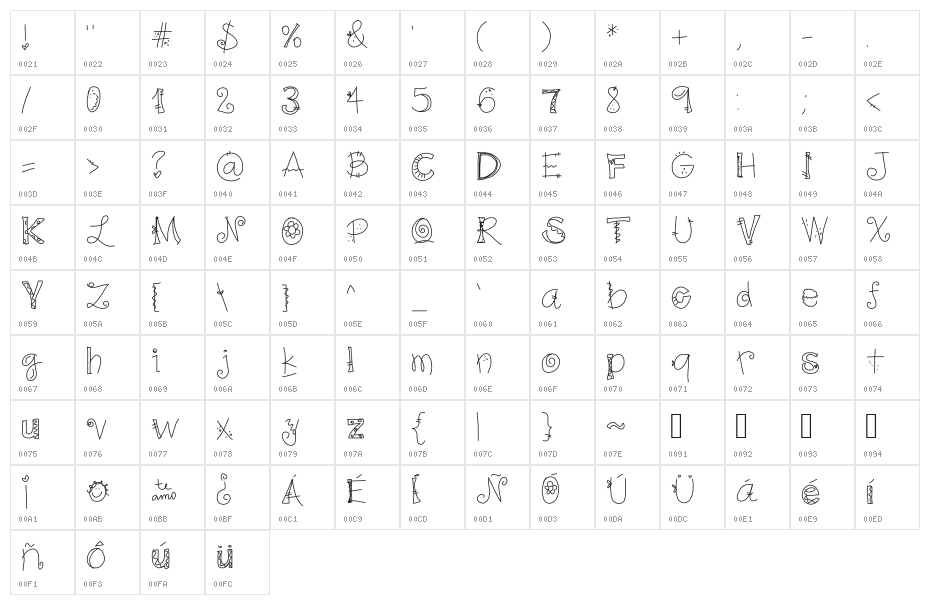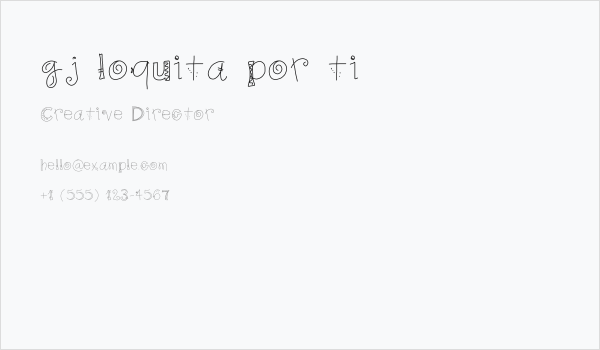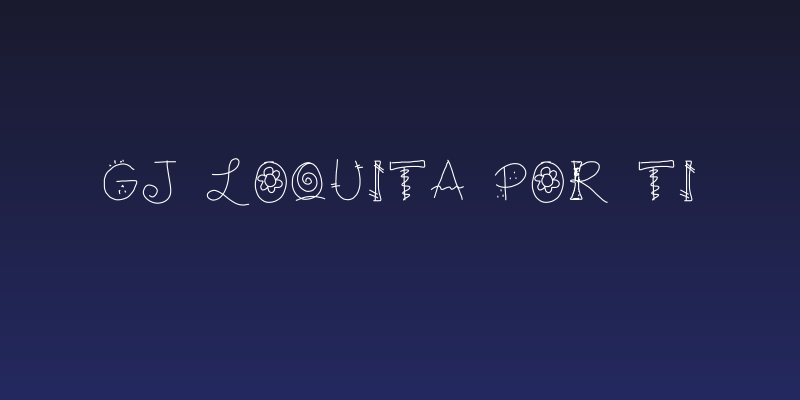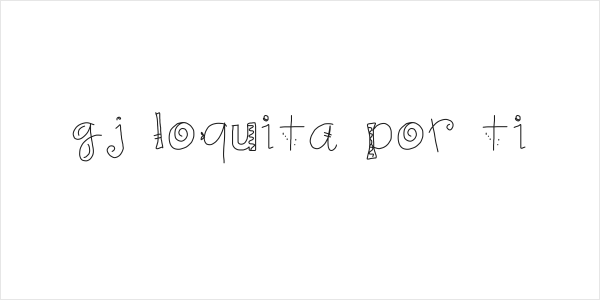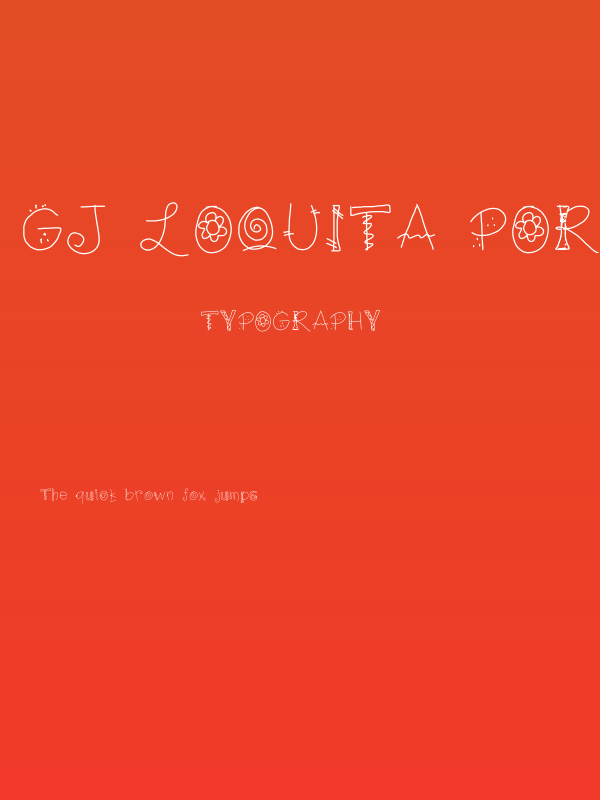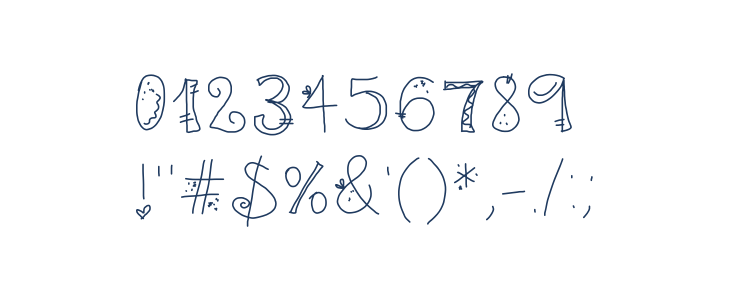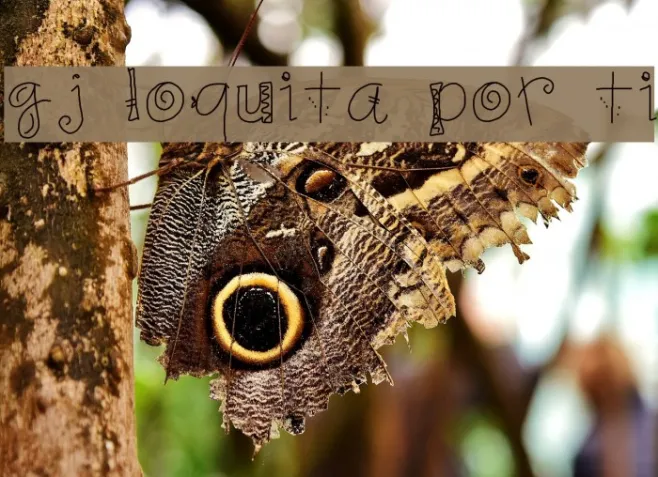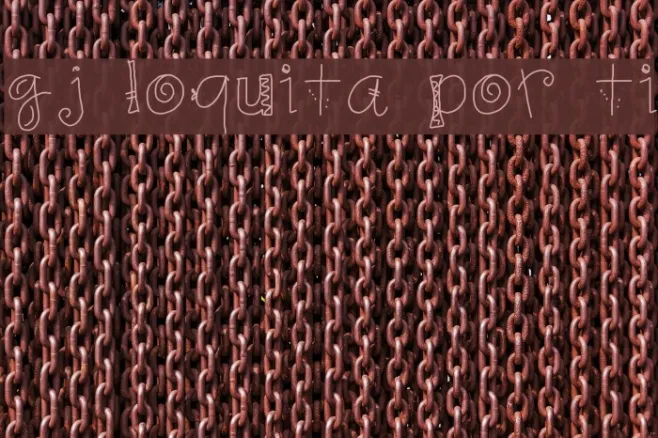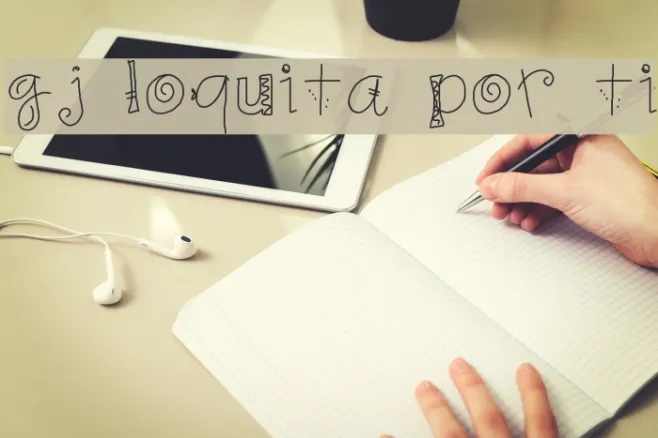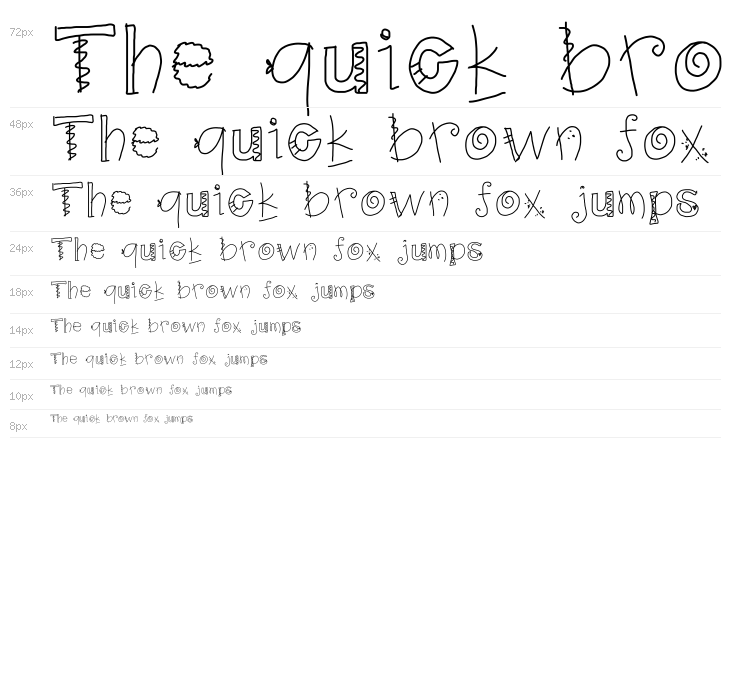
gj loquita por ti Font
gj loquita por ti Description
This whimsical and playful font features a hand-drawn style with a quirky and artistic flair. Each character is uniquely crafted with decorative elements, such as dots, swirls, and patterns, giving it a lively and dynamic appearance. The uppercase letters are bold and expressive, while the lowercase letters maintain a consistent whimsical theme. Numbers and special characters are equally adorned with creative embellishments, making this font ideal for projects that require a touch of fun and creativity. Its irregular shapes and varying line thicknesses contribute to its distinctive and eye-catching look.
| Overall Style | Playful, Artistic, Whimsical |
| Proposed Projects | Ideal for children's books, greeting cards, playful branding, and creative posters. |